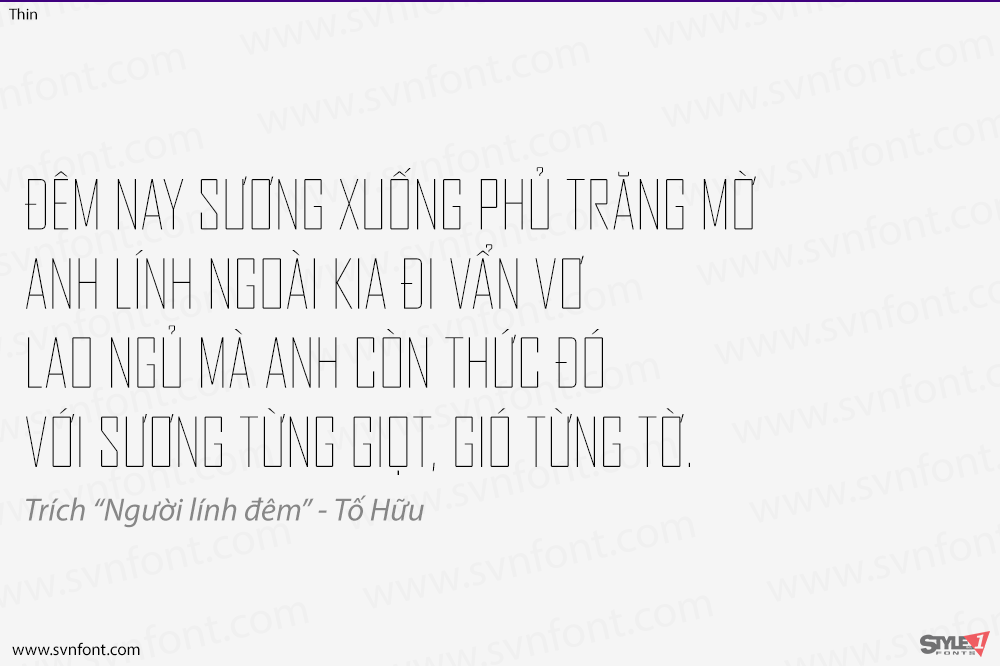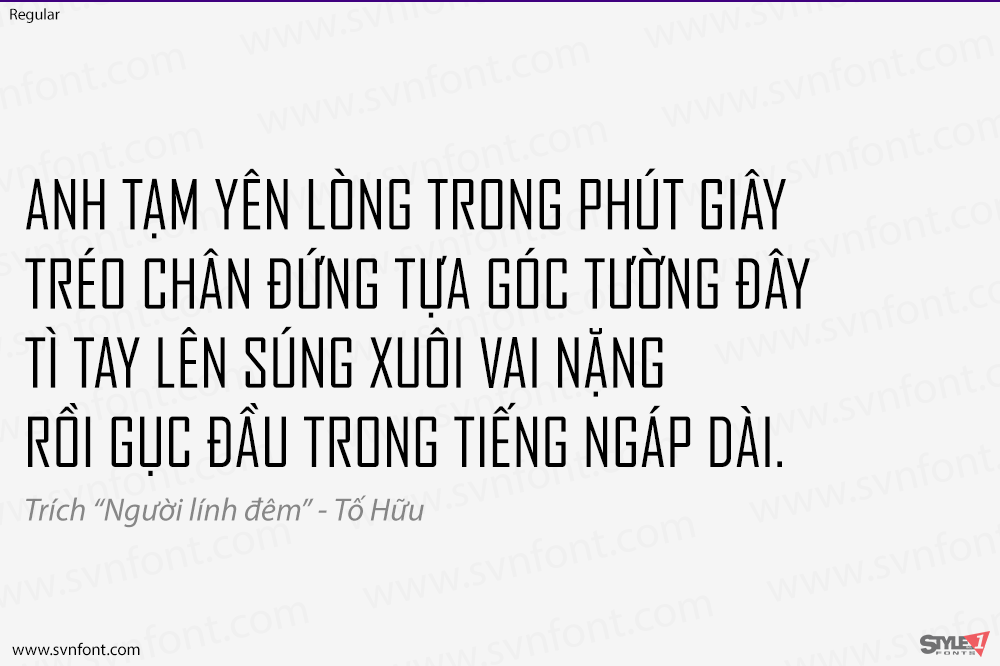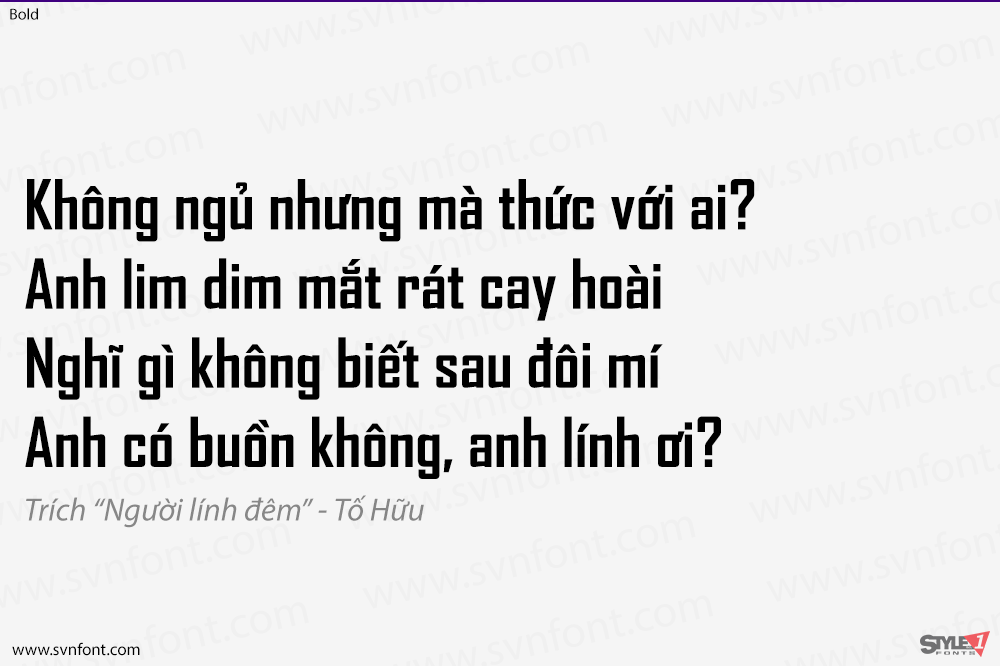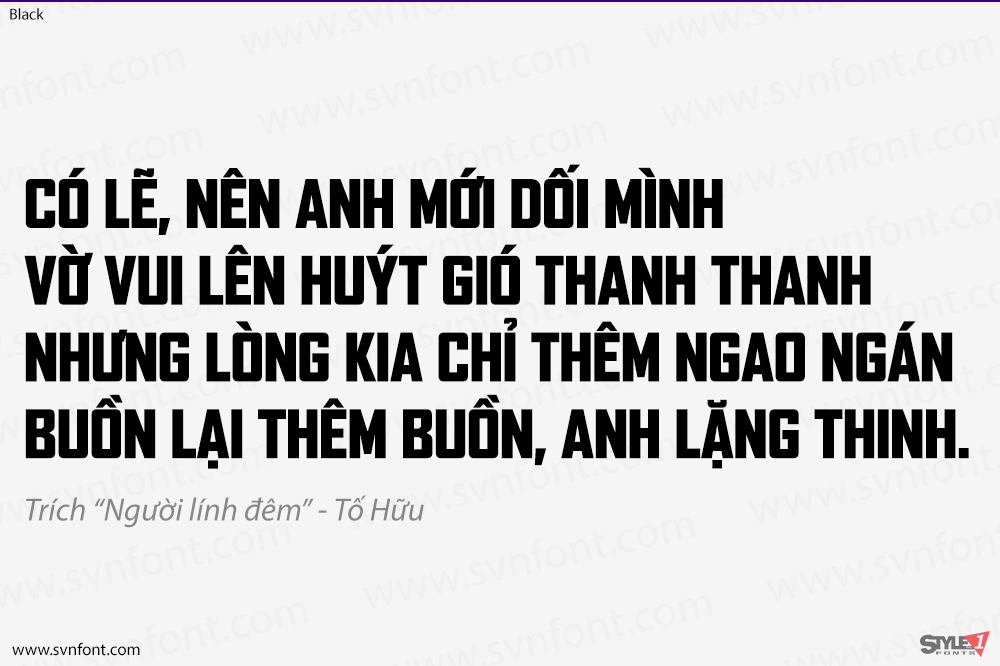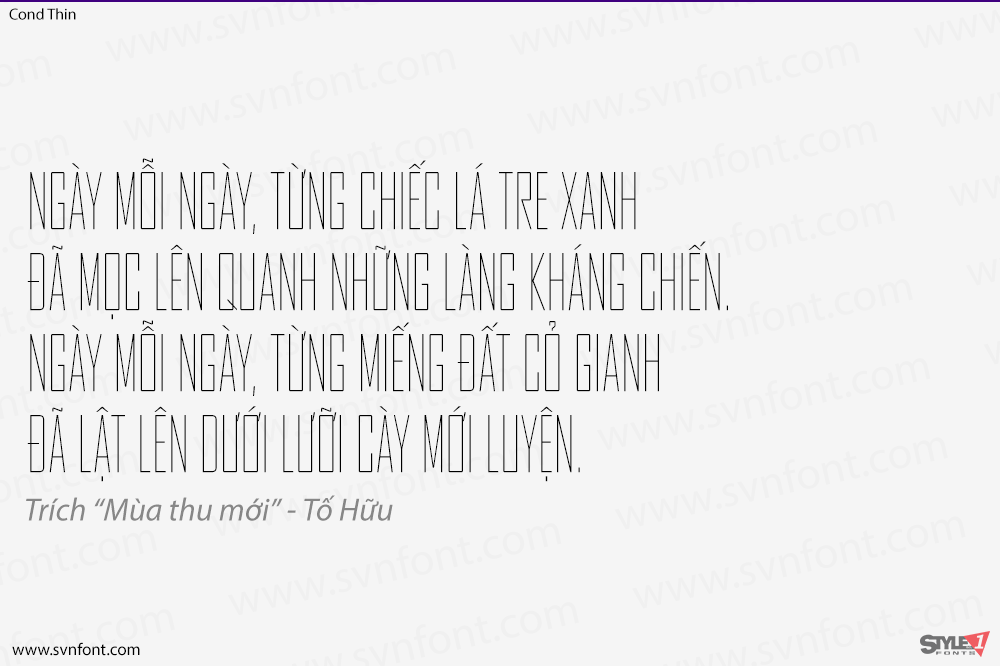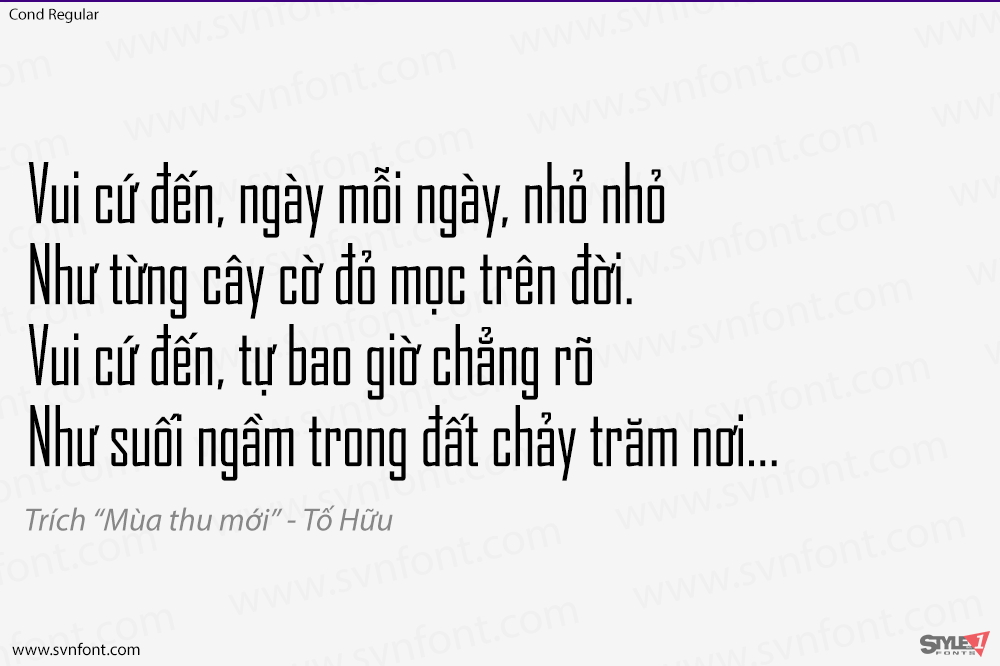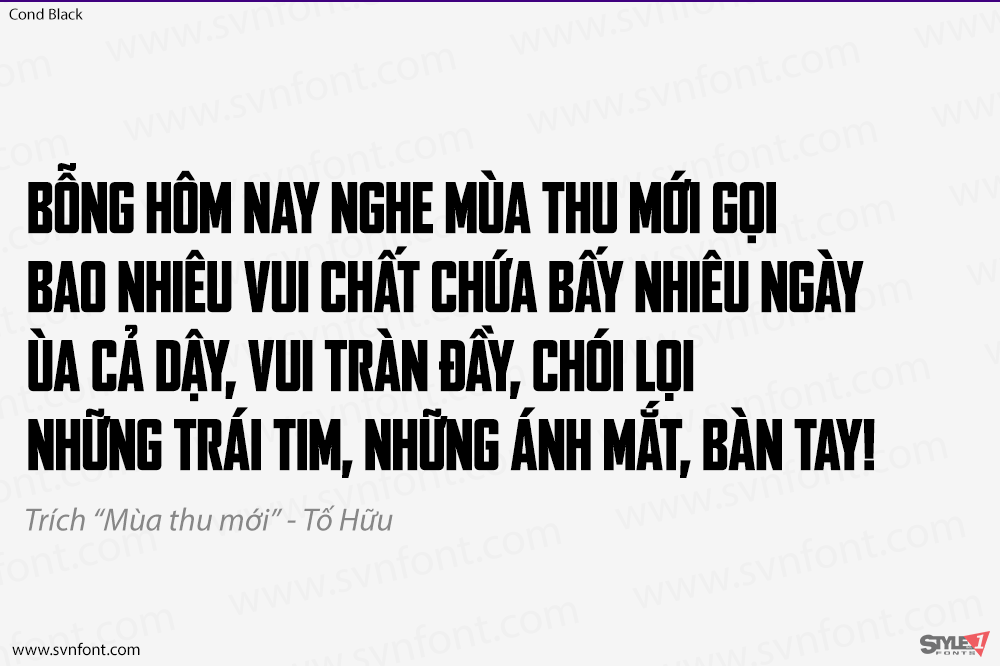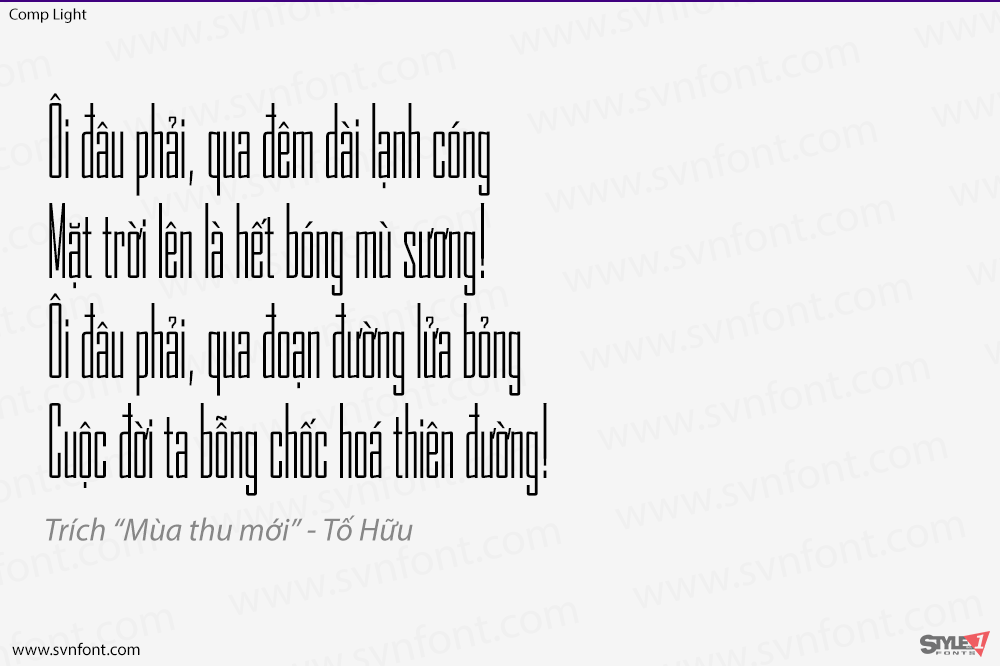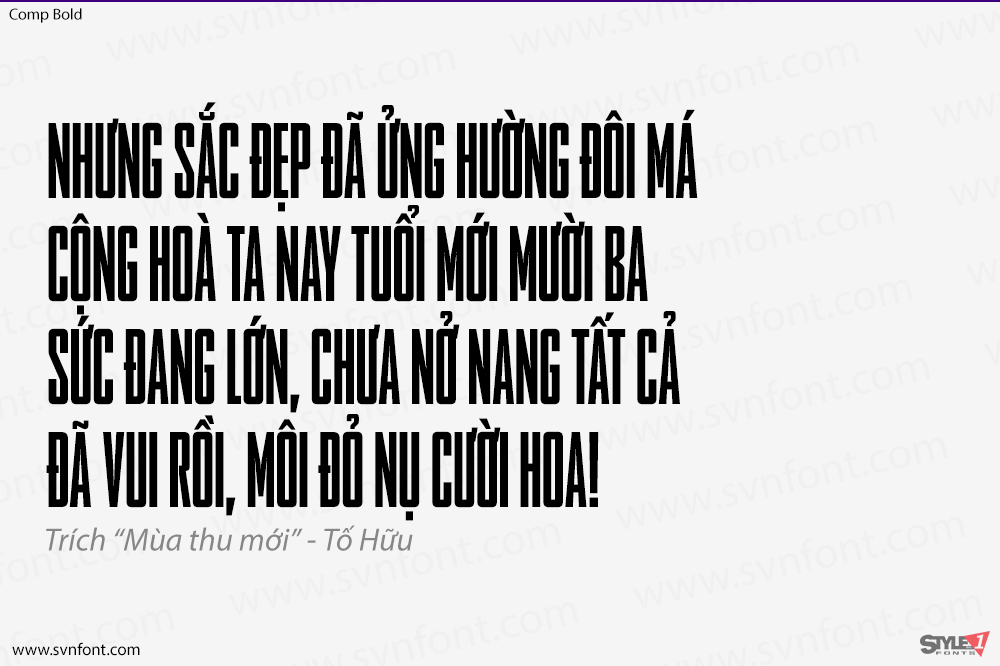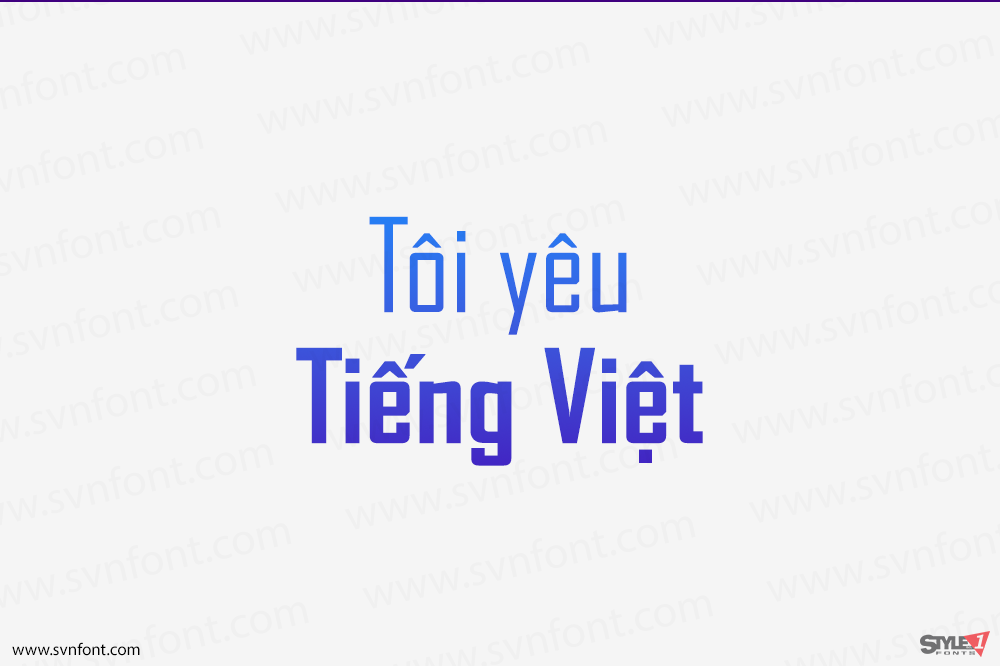
[Việt hóa] SVN-Agency FB (15 fonts)
Agency is a geometric sans-serif typeface family intended for titles and headings, released between 1990 and 1995.[1][2] It was designed by David Berlow of Font Bureau. It is an expansion of a capitals-only titling face created in the 1930s by Morris Fuller Benton, adding lower-case characters and a wider range of widths and weights. The expanded design somewhat resembles his classic Bank Gothic.
Nhà thiết kế: Morris Fuller Benton, David Berlow
Nhà phát hành: Font Bureau